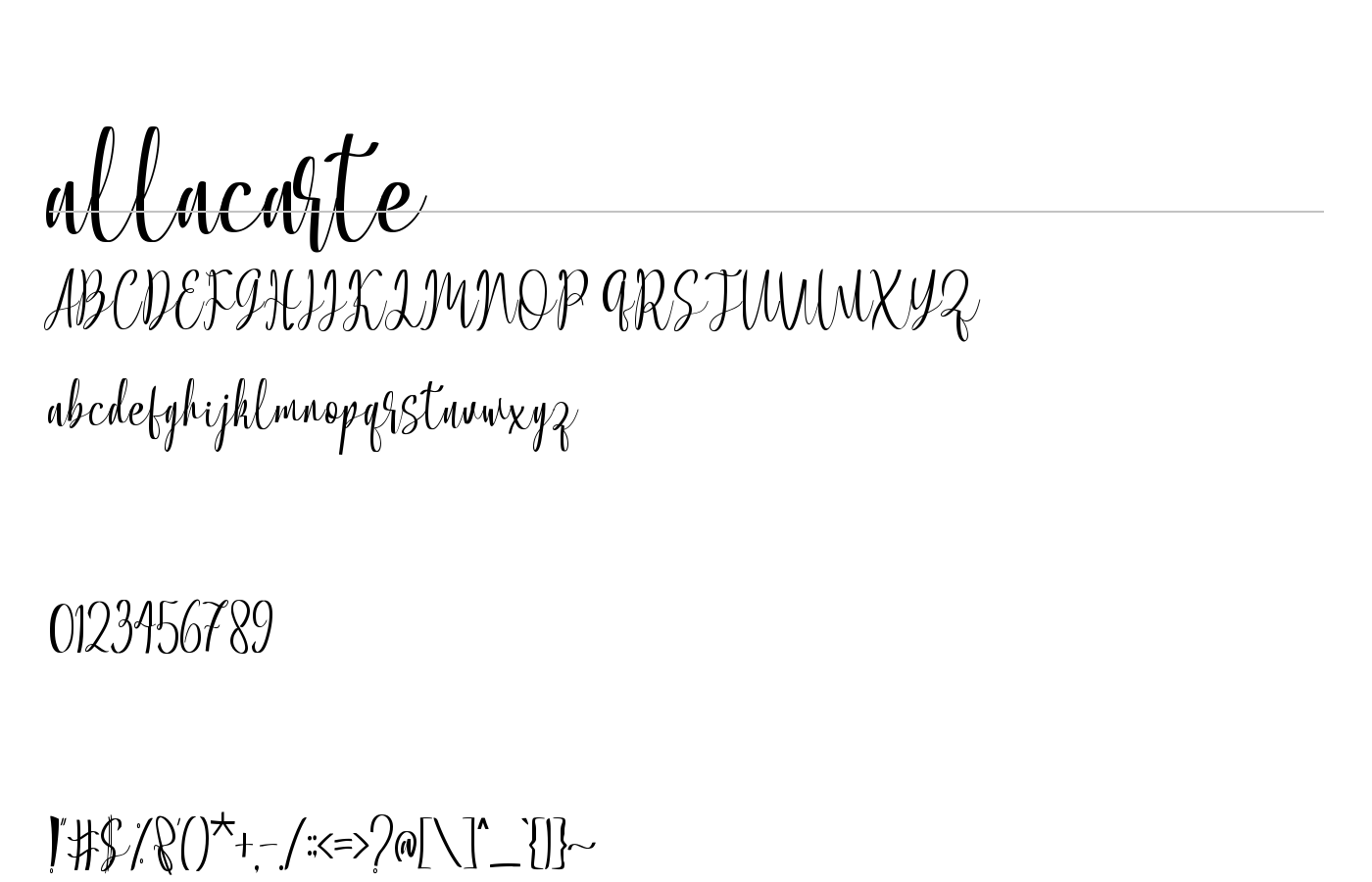
Allacarte is an elegant script font with a delicate, handwritten feel characterized by its slender, flowing strokes and refined letterforms. Its tall x-height and decorative swashes convey a sense of sophistication and charm, making it ideal for fashion branding, invitations, and stylish editorial projects. The font’s graceful style adds a personal, artistic touch while remaining readable, perfect for creating a luxurious yet approachable look.
allacarte Font
About allacarte Font
| Font family | allacarte Font |
| Designer | Mengulirpena_ 2020 (Deny Dwi Kurniawan) |